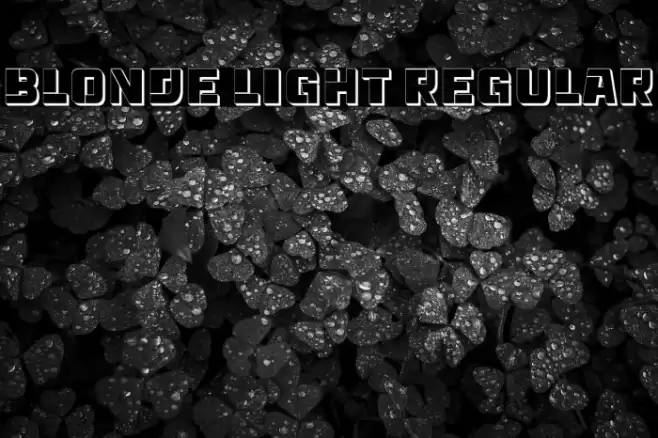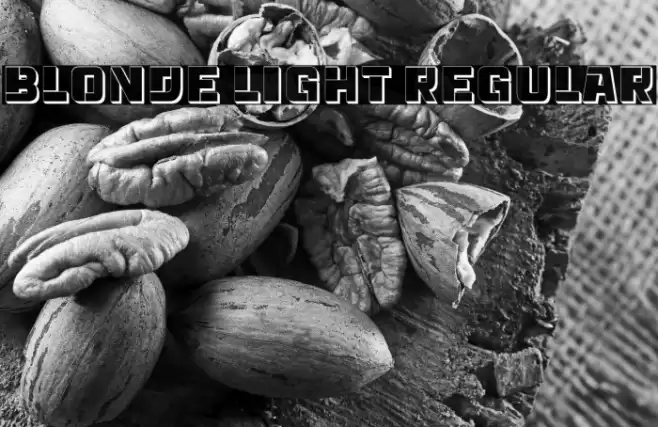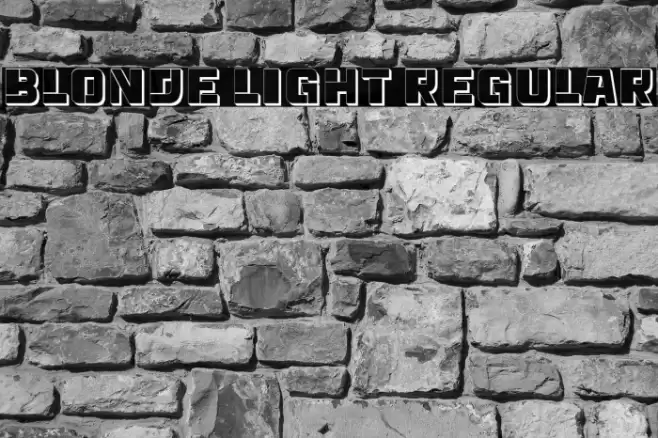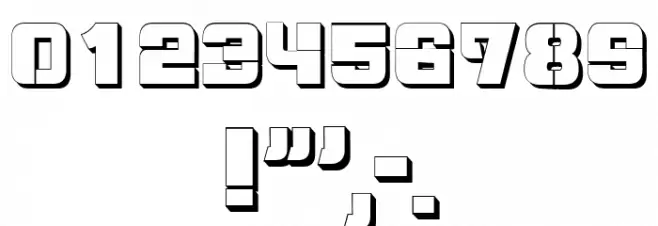
Blonde Light Regular Font
Blonde Light Regular Description
This font features a bold, geometric design with a three-dimensional effect. Each character is outlined with a shadow, giving it a distinct, blocky appearance. The uppercase letters are uniform in height, while the numbers and special characters maintain the same bold style. The font's design is modern and eye-catching, making it suitable for attention-grabbing headlines or titles. Its structured form and shadow effect create a sense of depth and dimension, enhancing its visual impact.
A bold, geometric font with a three-dimensional shadow effect from Uncategorized fonts.
- Proposed Projects: Ideal for posters, logos, and headlines where a strong visual presence is needed.